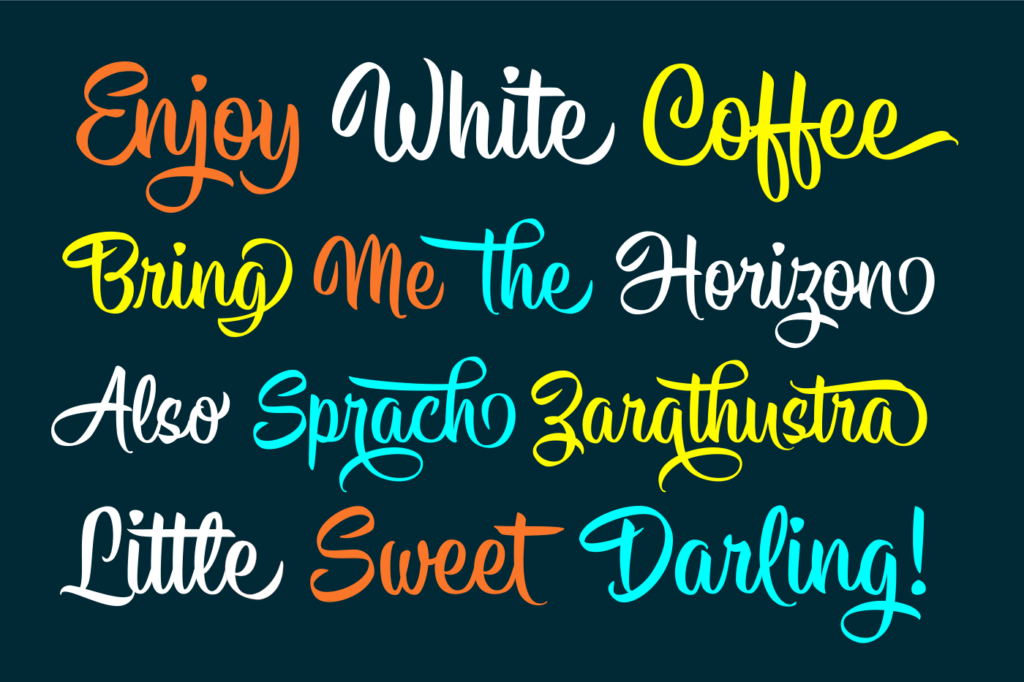
Hisyam Facelift Script Font
Hisyam Font is a unique typeface. Start your day off well with a calligraphy script font. It’s a trendy, modern, and natural calligraphy that’s ideal for branding, invitations, and web design projects. It was created by hptypework and is available for download. It’s a lovely brush pen calligraphy font with a bold weight and a variety of styles to choose from. The Font is available in two formats: OTF and TTF.
Hisyam Facelift Script font is a shortened, upright-style script designed for logotypes and headers. The Font is ideal for signatures, stationery, logos, typography quotes, magazine or book covers, website headers, clothes, branding, and packaging design, among other applications. Various Ligatures are also included in this typeface. You can add some curves to this Font to make it more appealing.
| Name | Hisyam Facelift Script Font |
| Style | Script, Calligraphy |
| Designer | hptypework |